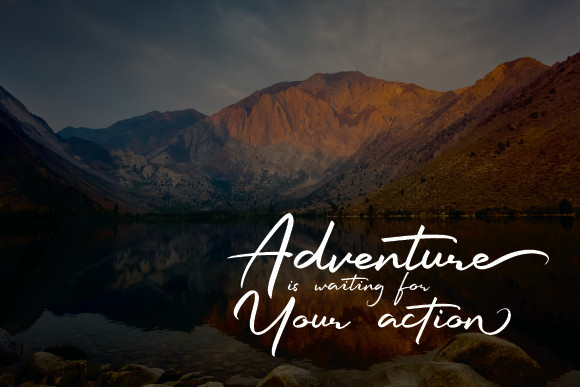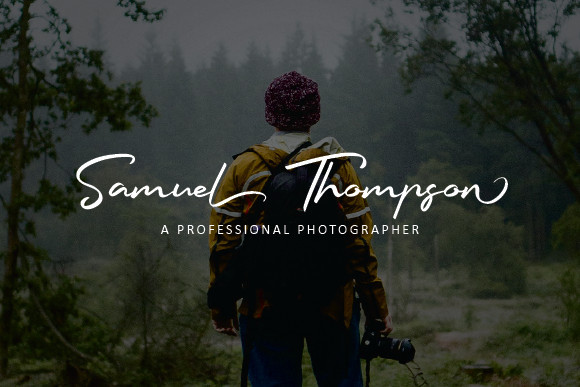
Best Adventure Font
Best Adventure feels equally charming and elegant. This stunning script font will elevate a wide range of design projects to the highest level, be it branding, headings, wedding designs, invitations, signatures, logos, labels, and much more!